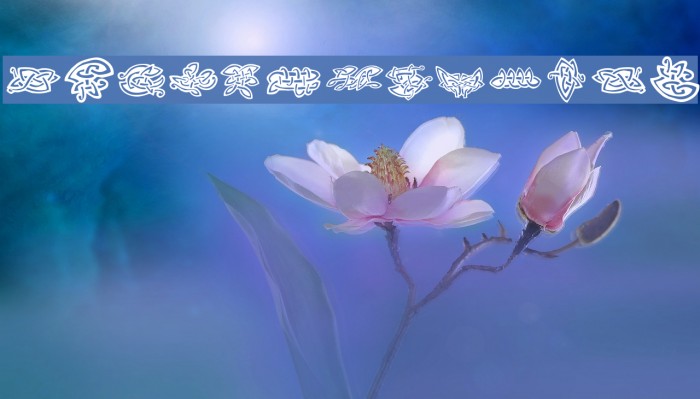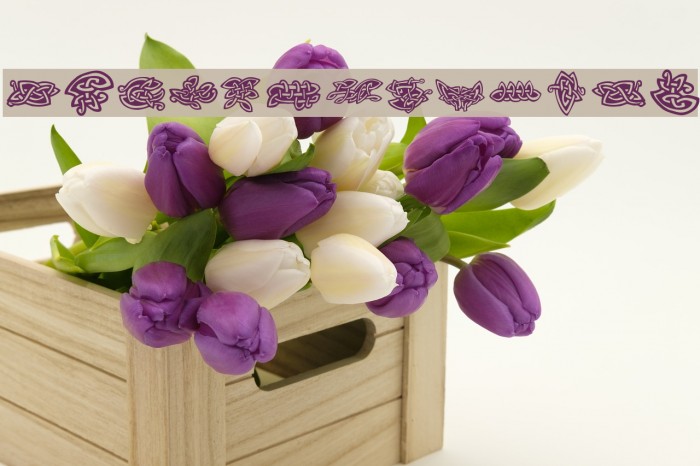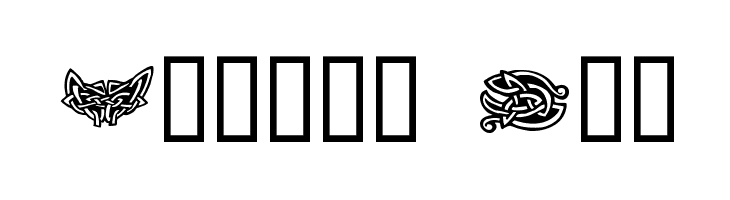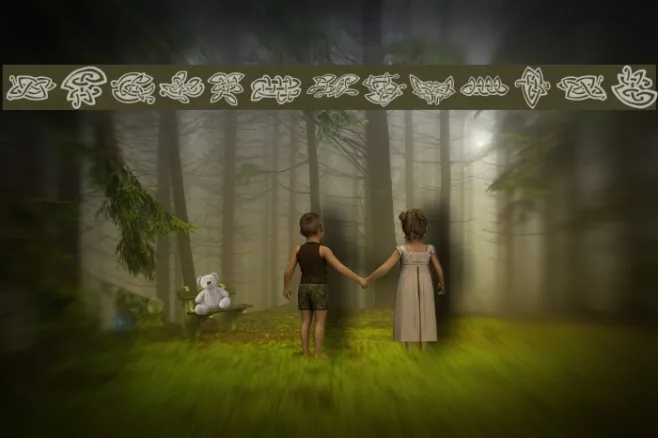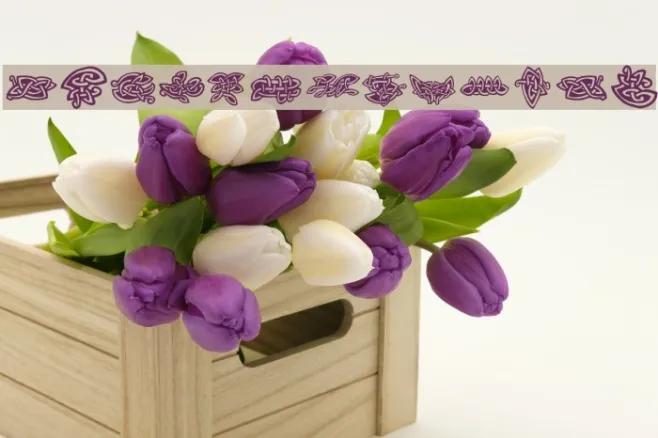
Tattoo No2 Font
This font features an intricate and decorative style, reminiscent of traditional tattoo designs. Each character is adorned with elaborate swirls and flourishes, creating a bold and artistic appearance. The letters are highly stylized, with a strong emphasis on curves and ornamental details, making it ideal for projects that require a unique and eye-catching aesthetic. The font's design is consistent across both uppercase and lowercase letters, maintaining its ornate theme throughout. Its complex patterns and bold lines make it stand out, suitable for creative and expressive design work.
An intricate, tattoo-inspired decorative font with bold, ornate details.
- Proposed Projects: Ideal for tattoo designs, artistic posters, album covers, and branding that requires a bold, decorative touch.
- Use Case: Logos, Headlines, Artistic projects